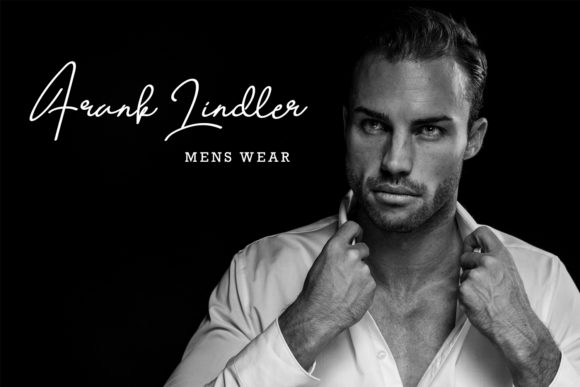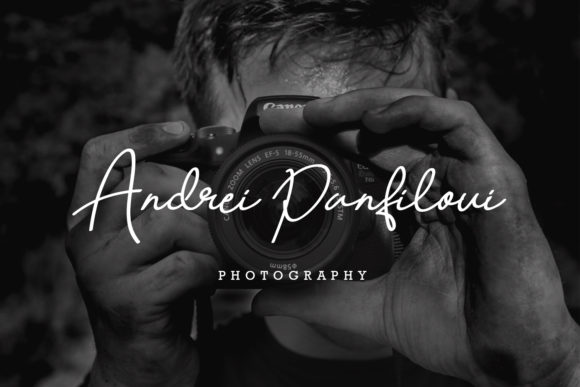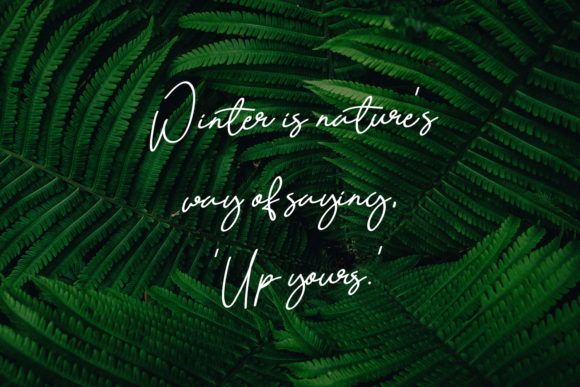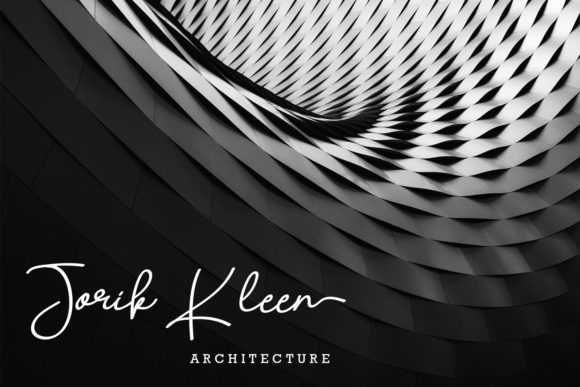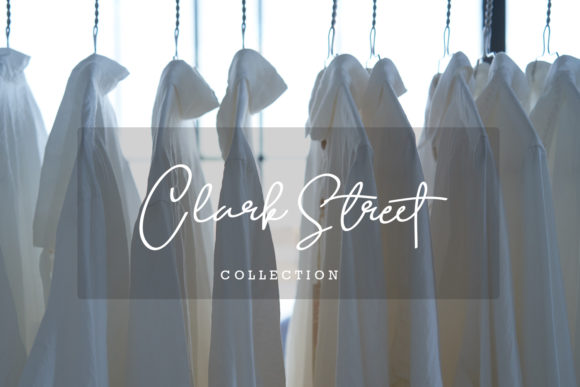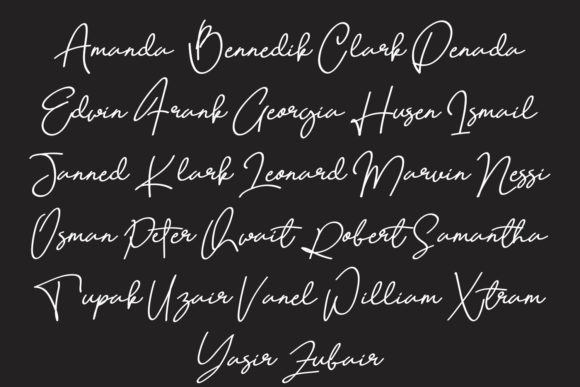
Introduction to Quetzalli Font
Quetzalli is a cool and fun script font with a unique style.
Get inspired by its unique and friendly feel .
Key Features of Quetzalli Font